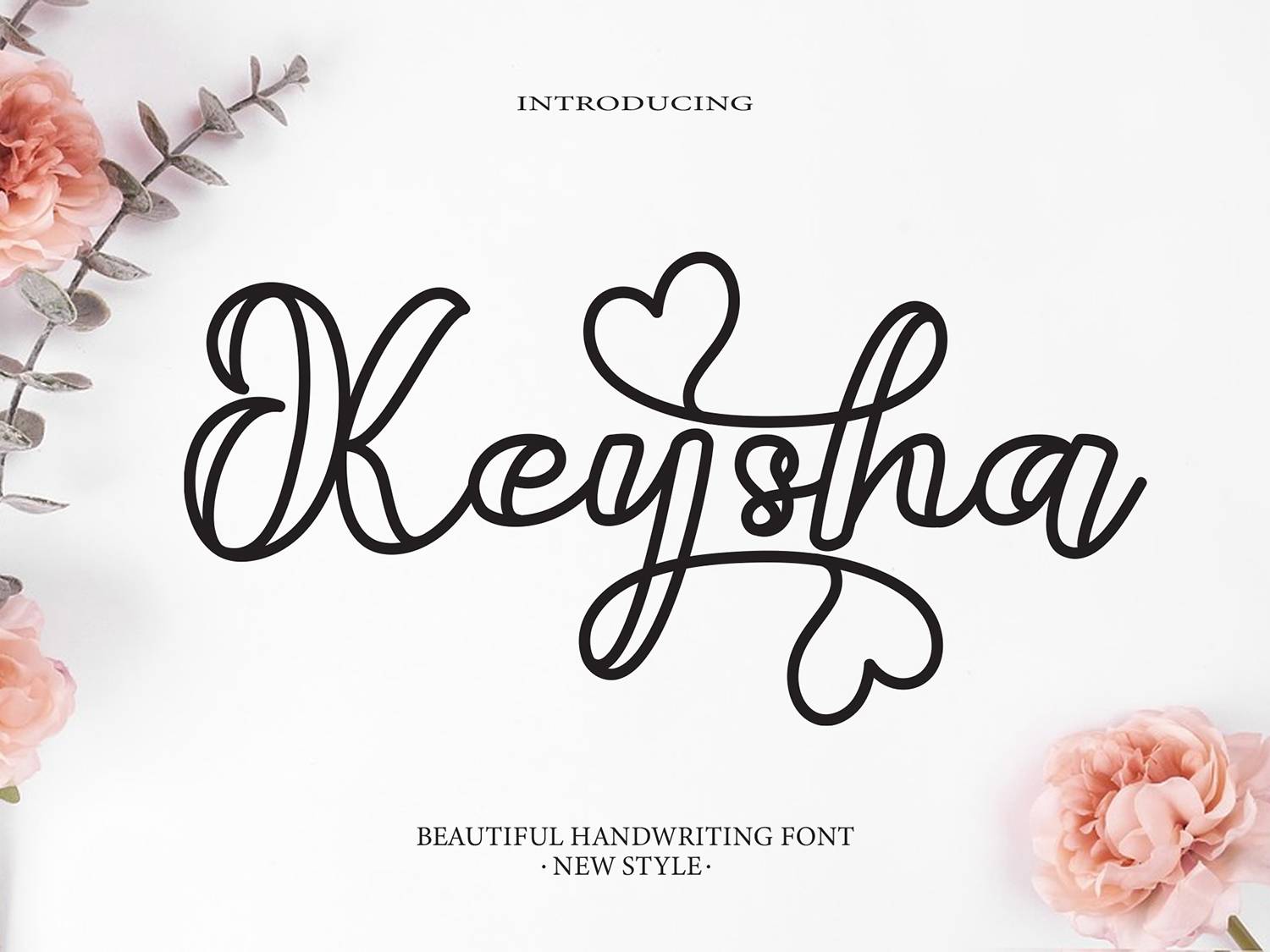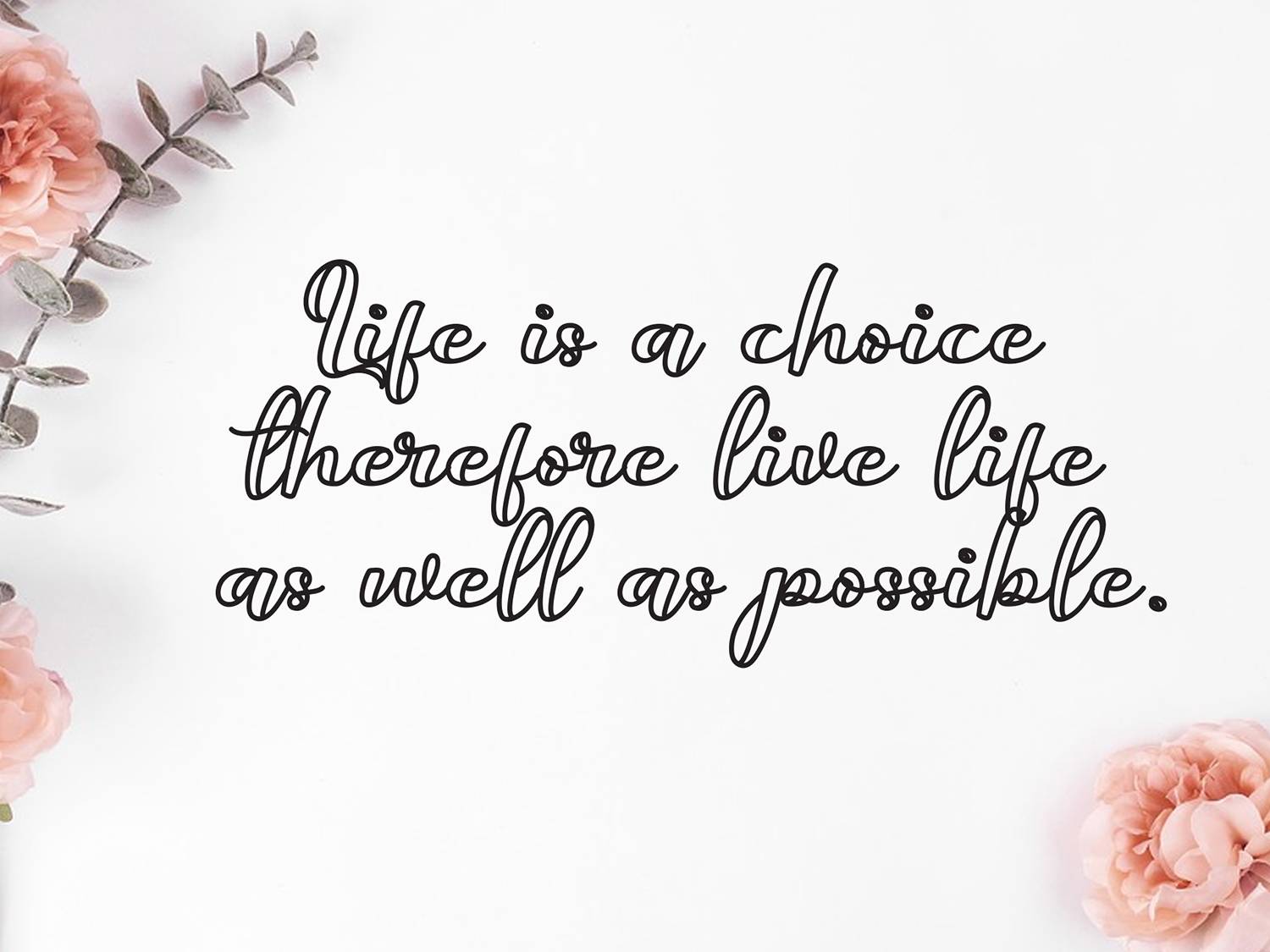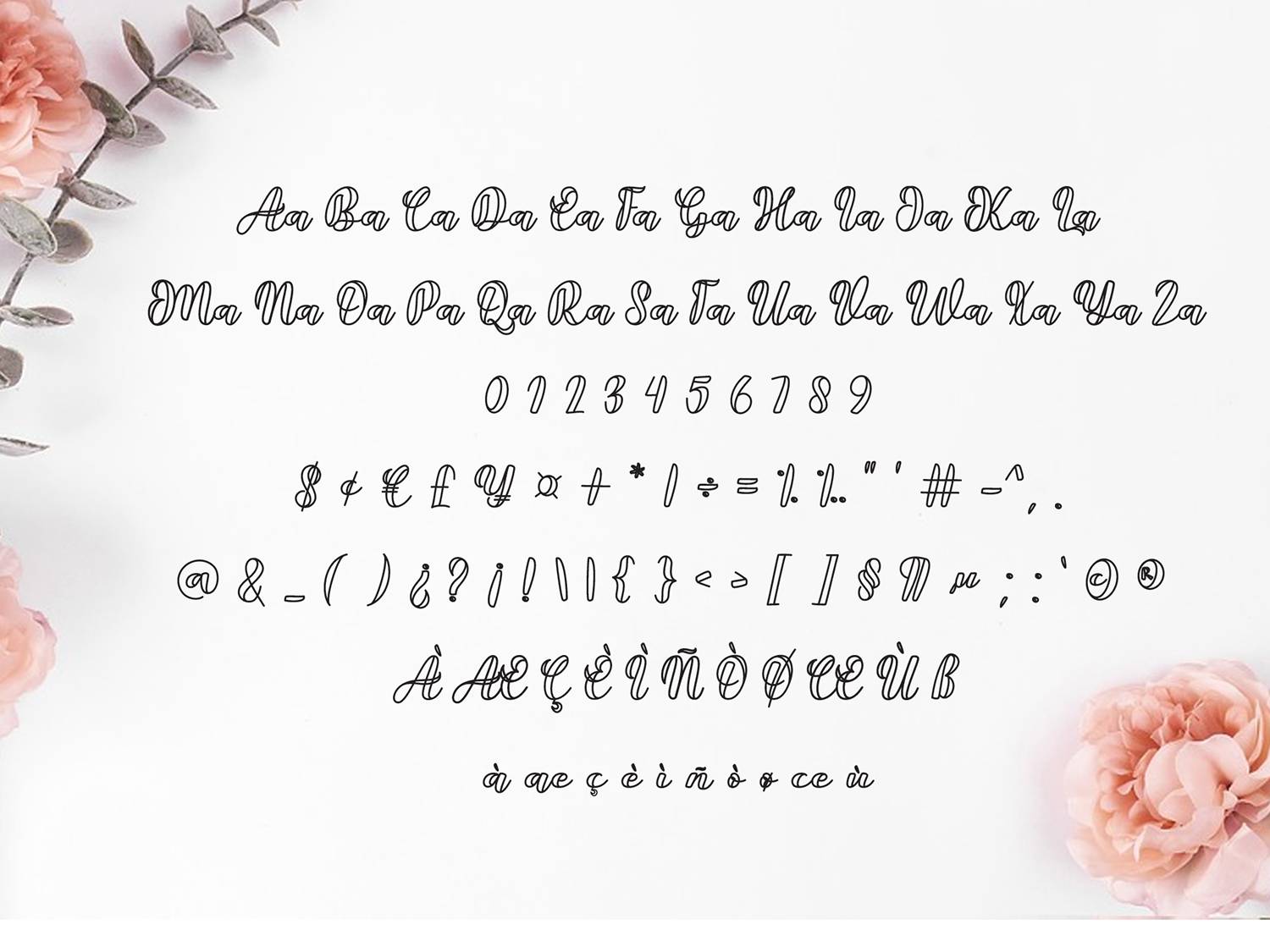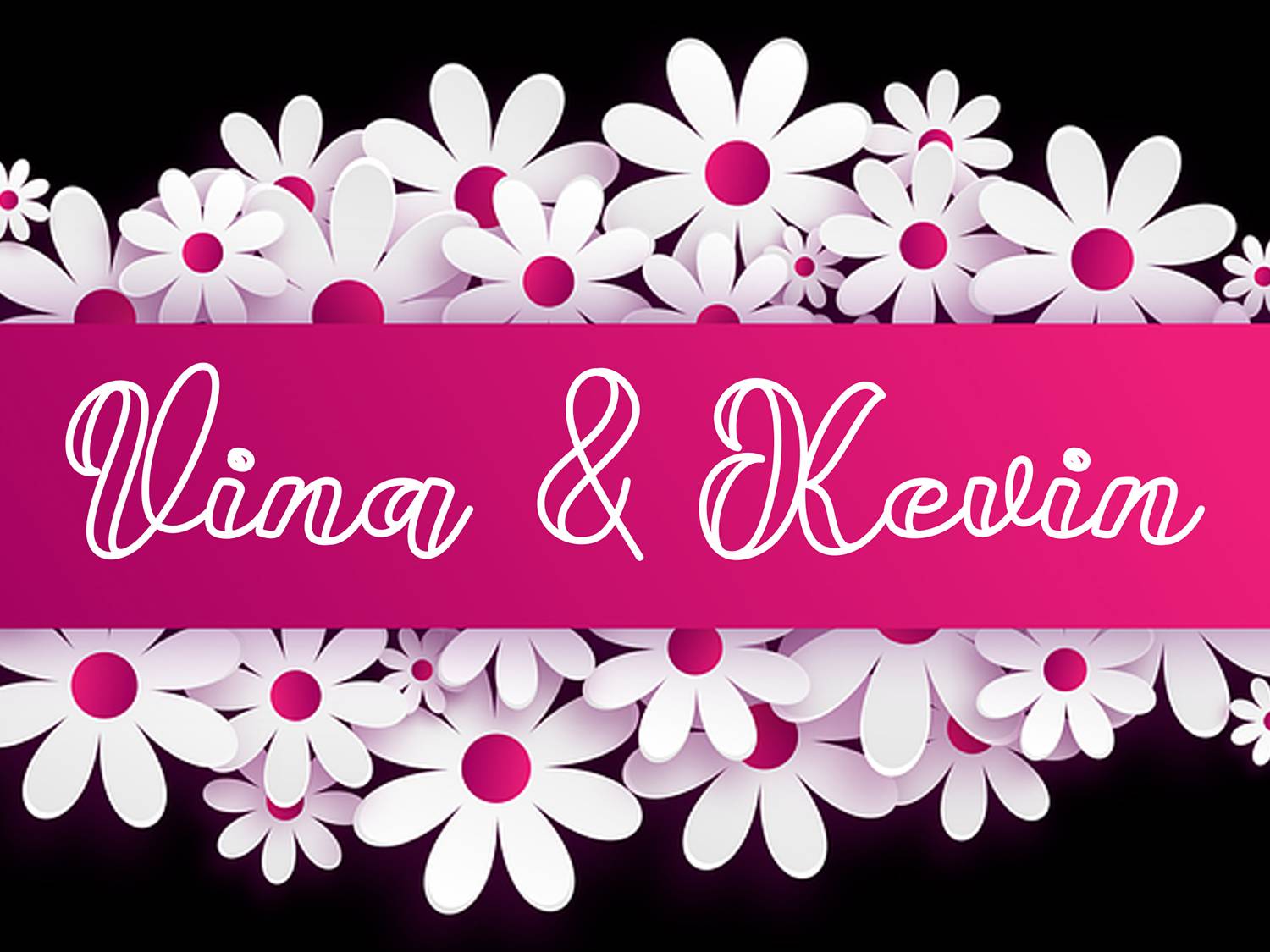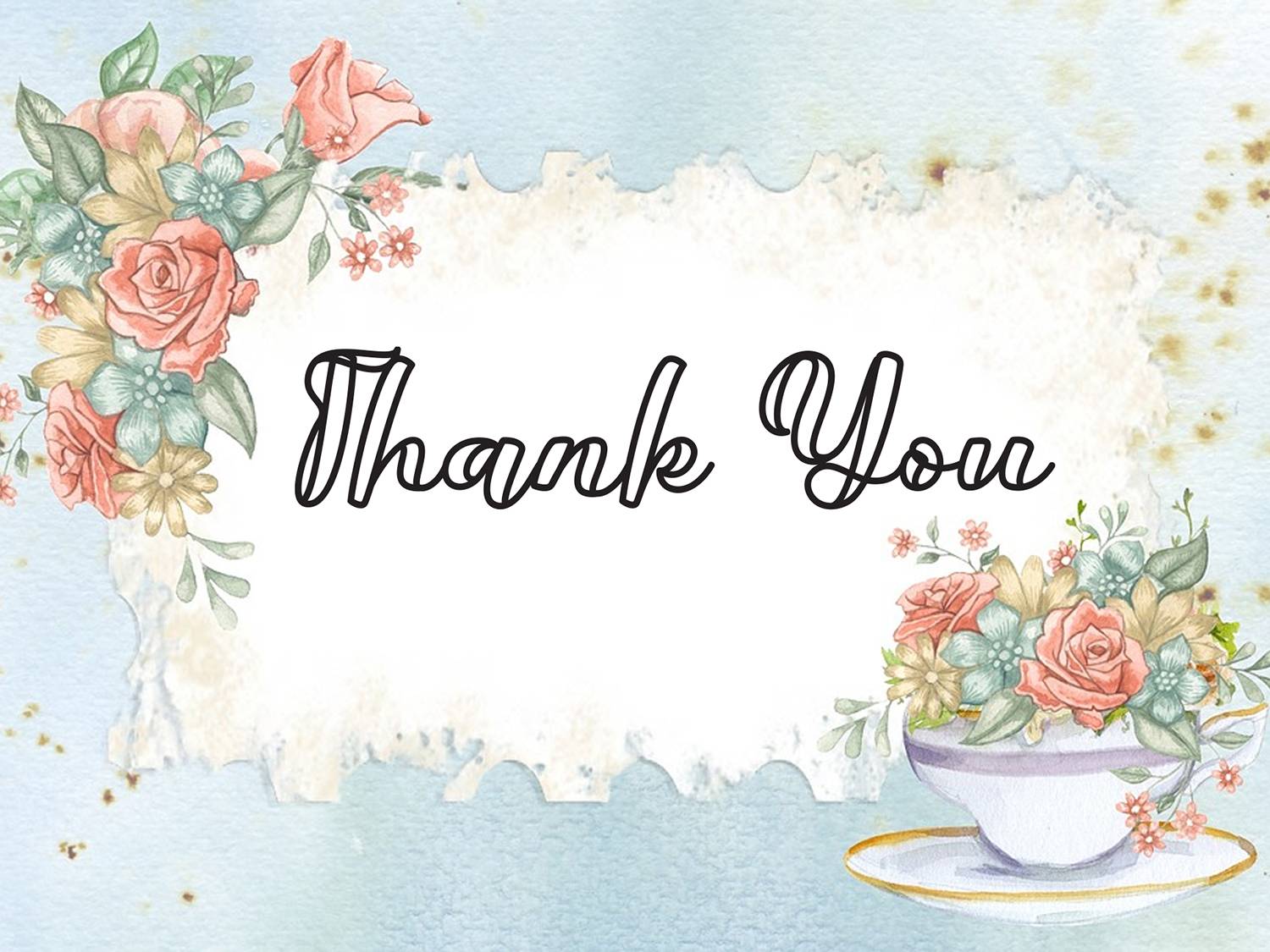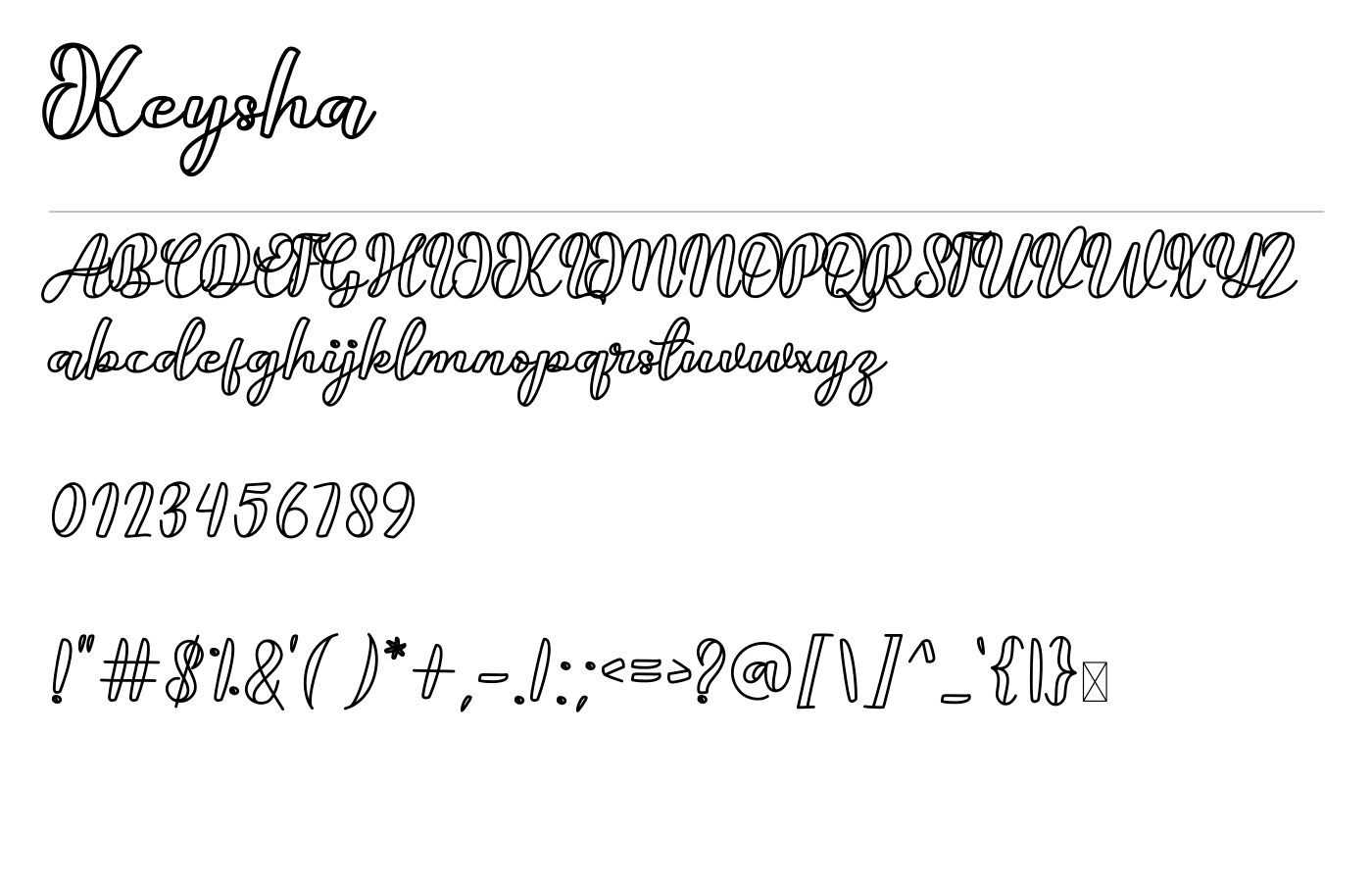
Keysha Font is a delicate and elegant script typeface featuring smooth, flowing lines and a refined, handwritten style. With its slender strokes and graceful loops, it conveys a personal and charming feel, making it ideal for invitations, greeting cards, branding, and other creative projects that require a touch of sophistication and warmth.
Keysha Font